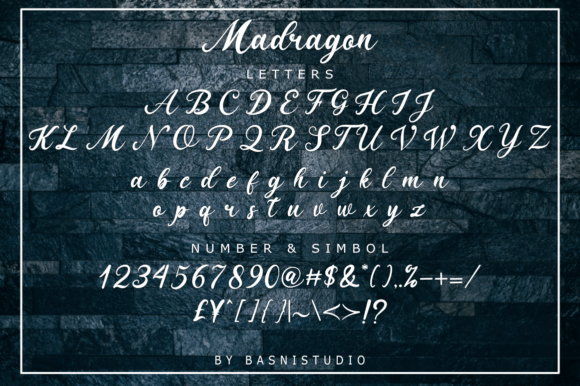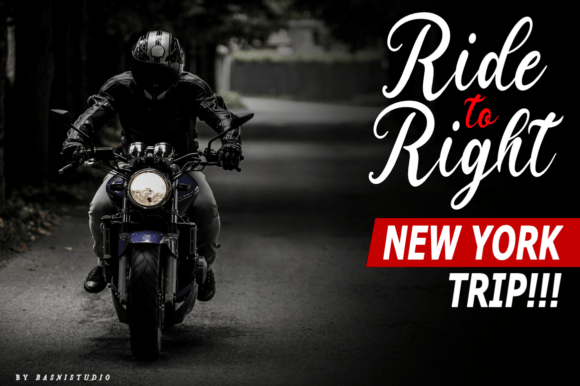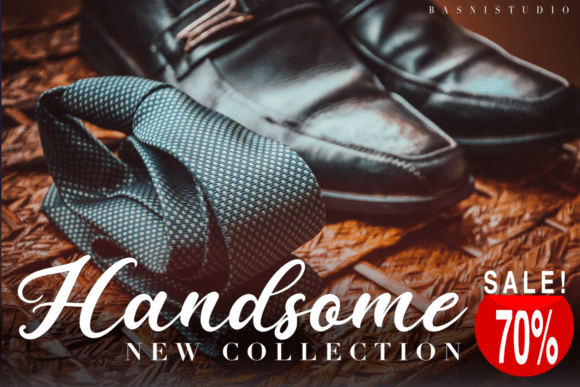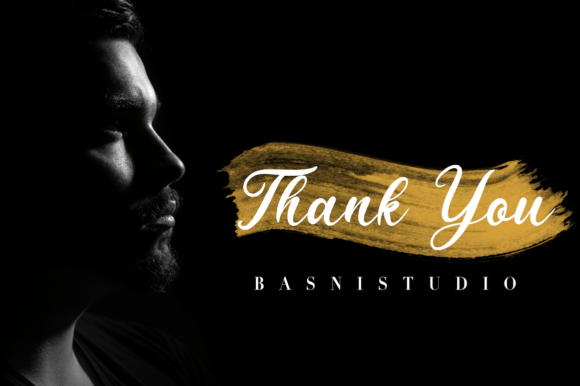
Introduction to Madragon Font
As designers, we’ve all been there – stuck in a creative rut, staring at a blank canvas, and desperately searching for that perfect font to elevate our project. The moment of discovery, when the right font finally clicks, is pure magic. And, for those who have been searching for a modern calligraphy font that exudes precision and style, that moment is finally here with the Madragon Font.
Whether you’re working on a branding project, building a website, or crafting editorial designs, the Madragon Font is an invaluable resource. Its high-quality design, transparent background, and multilingual support make it a game-changer for designers who want to create visually stunning and professional-looking content. And, as an added bonus, this font is now available for free download, making it an accessible design resource for creatives of all levels.
Key Features of Madragon Font
- High-quality design resource for creative projects, suitable for a wide range of applications.
- Includes a range of glyphs and characters, making it a versatile design resource for various creative projects.
- Is a part of a comprehensive font family, offering a wide range of styles and weights for added flexibility.
Honest Review: Madragon Font
I recently stumbled upon the Madragon Font while searching for a high-quality design resource for my creative project. I was immediately drawn to its elegant, modern aesthetic, making it perfect for a wide range of design applications.
- ✨ High-quality design: The font is incredibly detailed and refined, making it suitable for both digital and print projects.
- ✨ Transparent background: This feature allows for seamless integration into various design elements, giving you complete control over your creative project.
- ⚠️ Limited language support: Unfortunately, the Madragon Font only supports a limited number of languages, which may be a concern for designers working on international projects.
- ⚠️ No bold or italic variations: While the font is available in regular and condensed styles, it would be great to have more variations to work with.
Overall, I’m impressed with the Madragon Font’s design and functionality. While it has some limitations, it remains a valuable resource for designers looking for a high-quality, modern font. I’d definitely recommend it for any creative project, especially those requiring a sleek and sophisticated aesthetic.
Use the Madragon Font with a transparent background to create a clean and modern look. Experiment with different font sizes and colors to add depth and interest to your designs. You can also use the Madragon Font in combination with other design elements, such as graphics and images, to create a unique and eye-catching visual identity.
The Madragon Font is a versatile design resource that can be used for a wide range of creative projects, including branding, marketing materials, and digital products. It’s also a great choice for creating invitations, business cards, and other print materials that require a touch of sophistication and elegance.